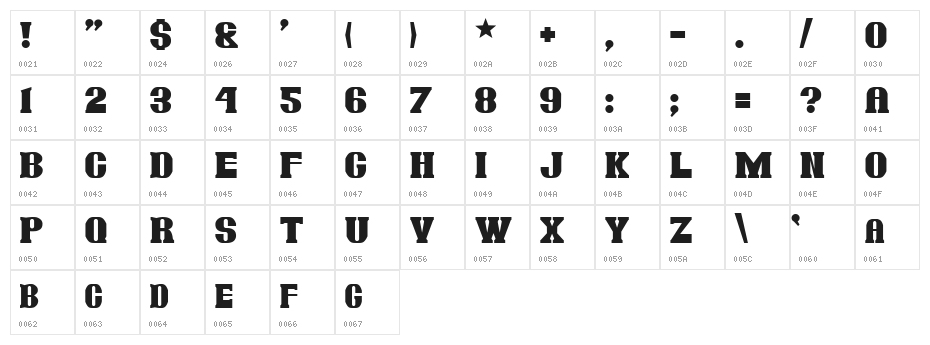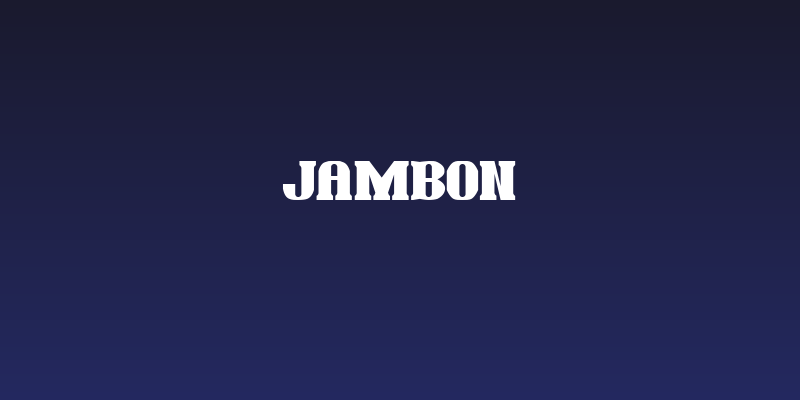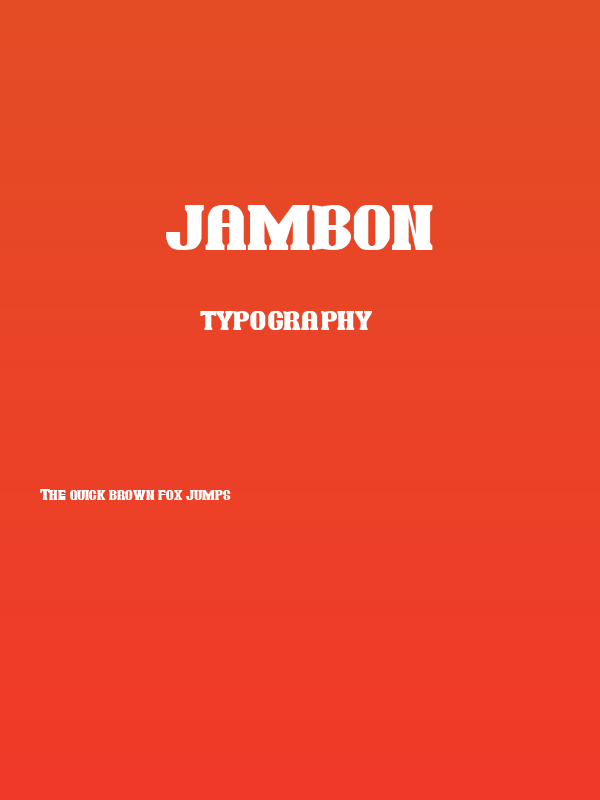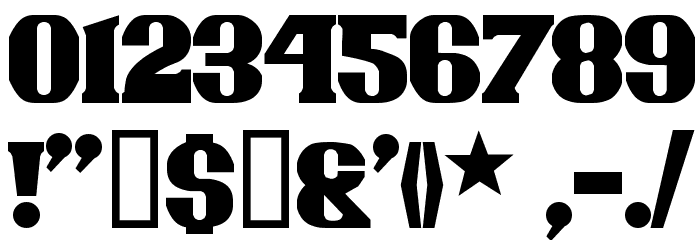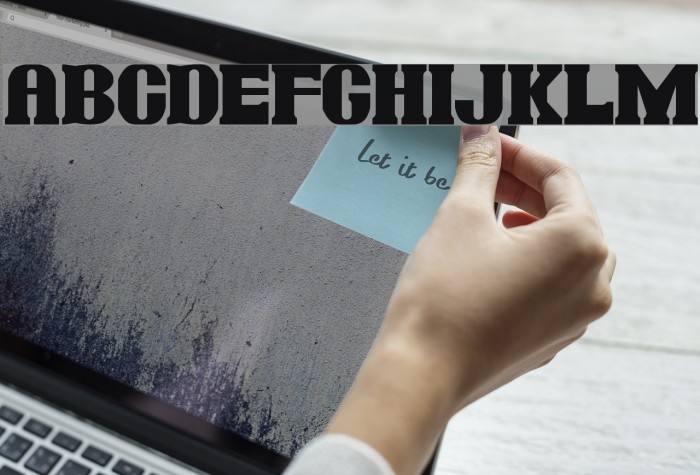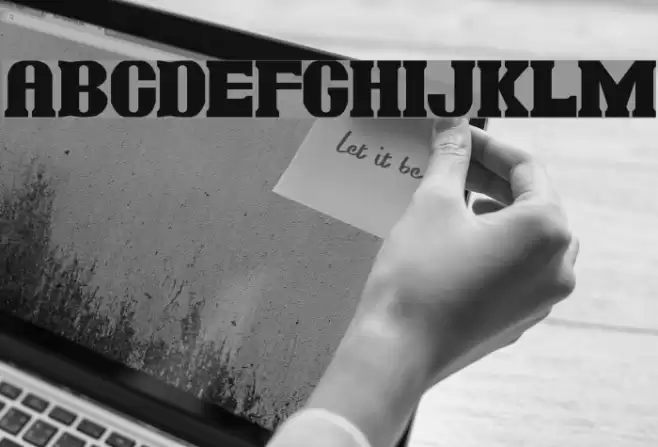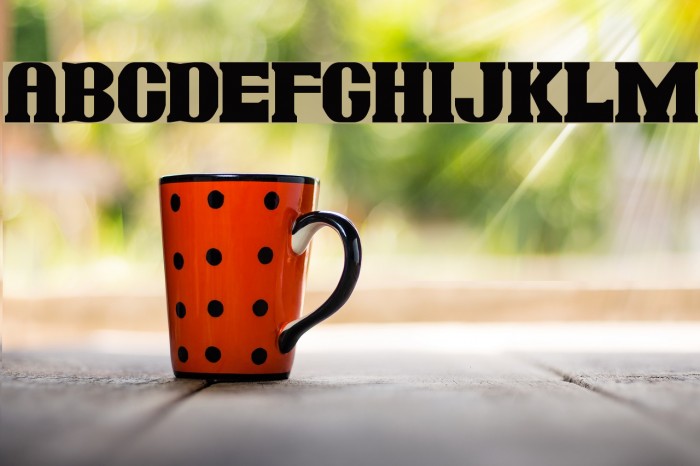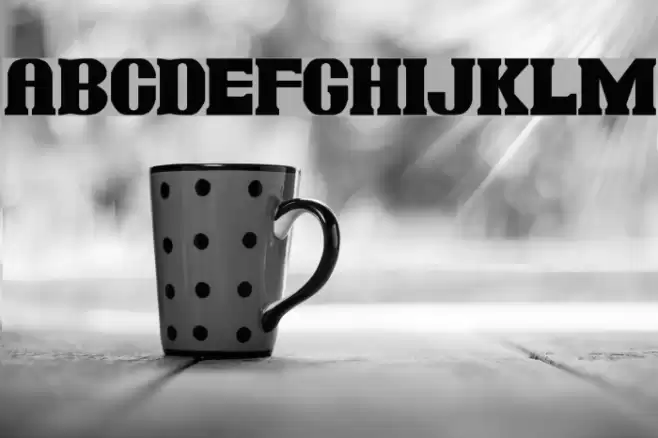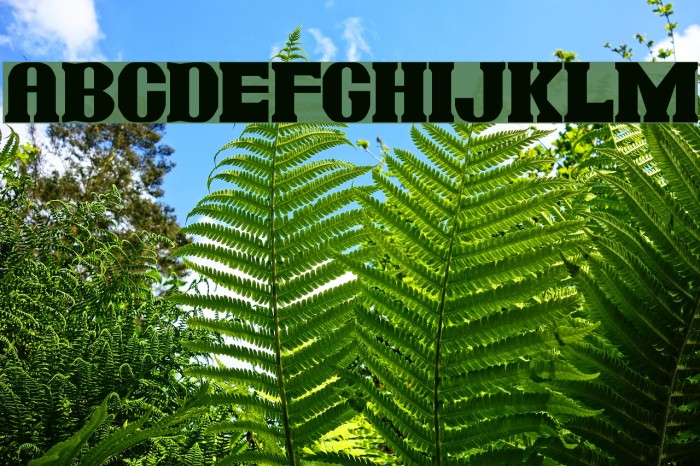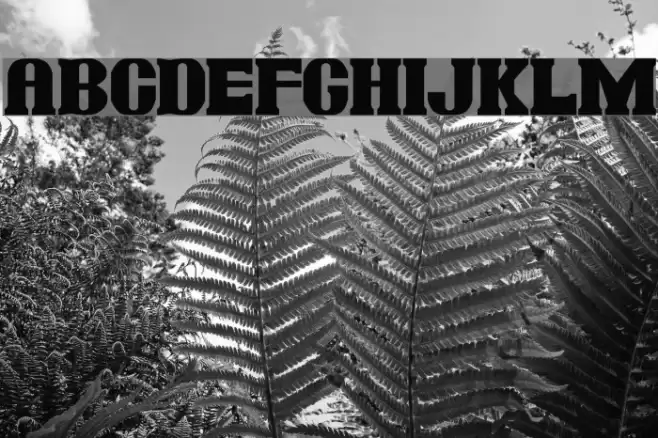
Jambon Font
Jambon Description
This font features a bold and robust design with strong, thick strokes that create a commanding presence. The characters are crafted with a slab serif style, giving them a sturdy and impactful look. The uppercase letters are particularly striking, with their wide and solid forms. The numbers and special characters maintain this boldness, ensuring consistency across all glyphs. The font's design is reminiscent of vintage Western typography, making it ideal for projects that require a touch of ruggedness and strength.
| Proposed Projects | Ideal for posters, logos, branding, and any design requiring a bold, vintage aesthetic. |